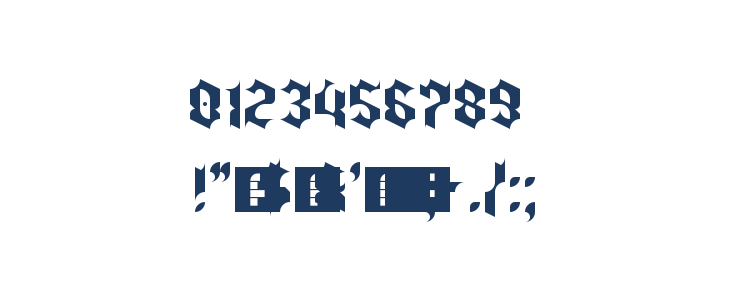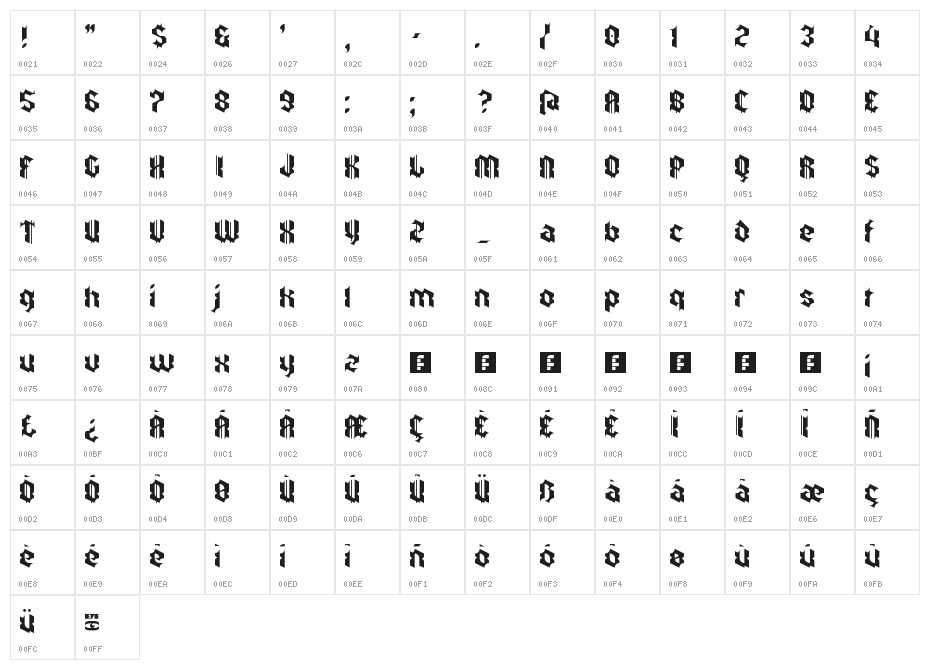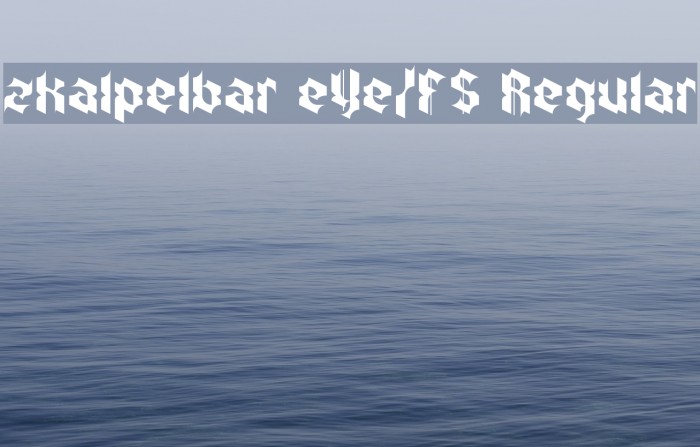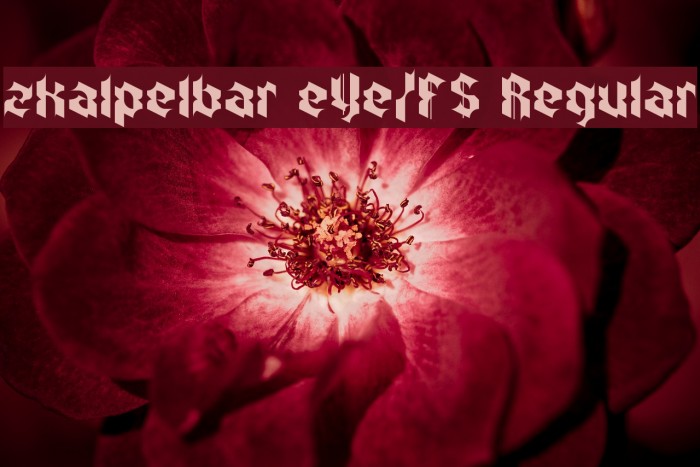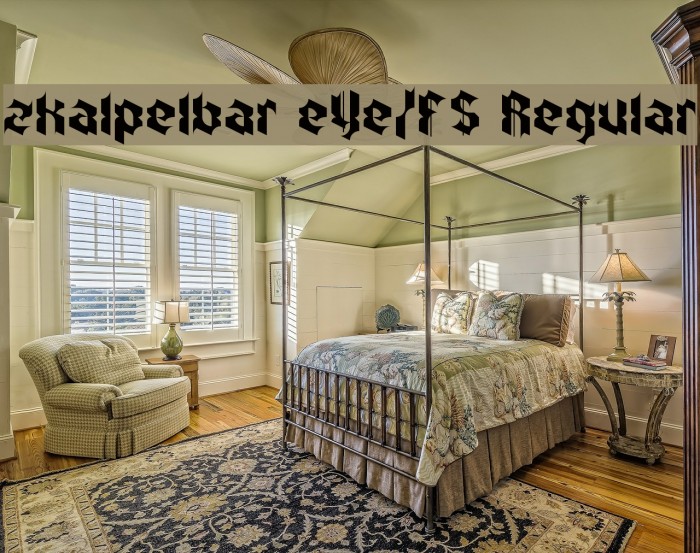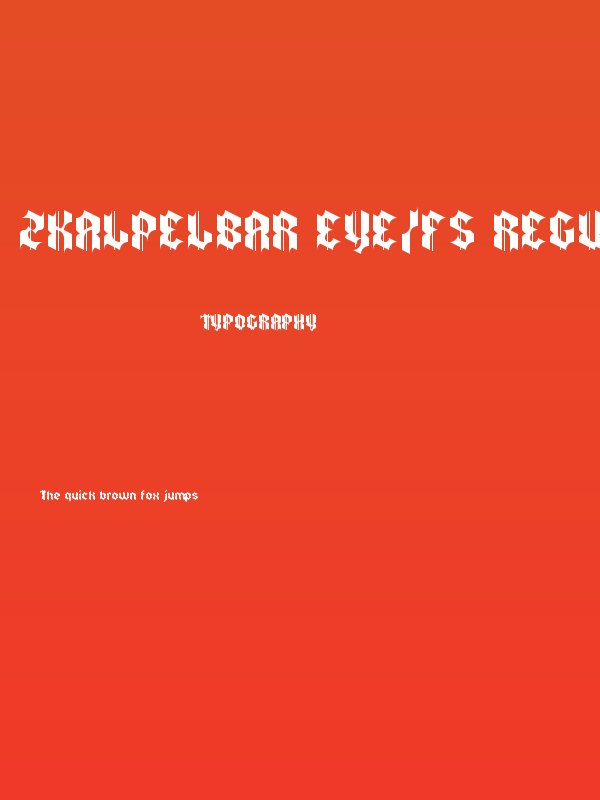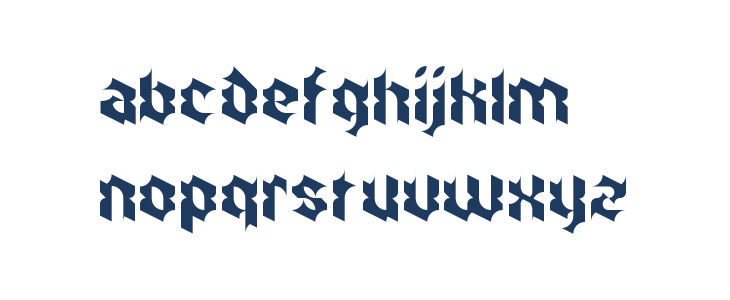
zkalpelbar eYe/FS Regular Font
zkalpelbar eYe/FS Regular Description
This font exhibits a striking and bold blackletter style, characterized by its sharp, angular lines and intricate detailing. The uppercase letters are particularly ornate, with dramatic flourishes and a gothic aesthetic that commands attention. The lowercase letters maintain a consistent style, offering a slightly more subdued but equally impactful appearance. Numbers and special characters are designed to match the overall theme, ensuring a cohesive look across all text elements. The font's unique style makes it ideal for projects that require a historical or medieval touch, while its boldness ensures readability even at smaller sizes.
| Overall Style | Gothic, Decorative |
| Proposed Projects | Ideal for use in branding, posters, album covers, or any project seeking a historical or gothic aesthetic. |